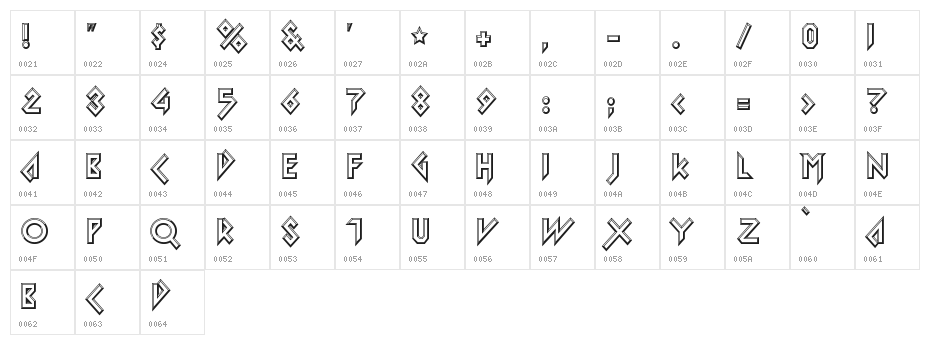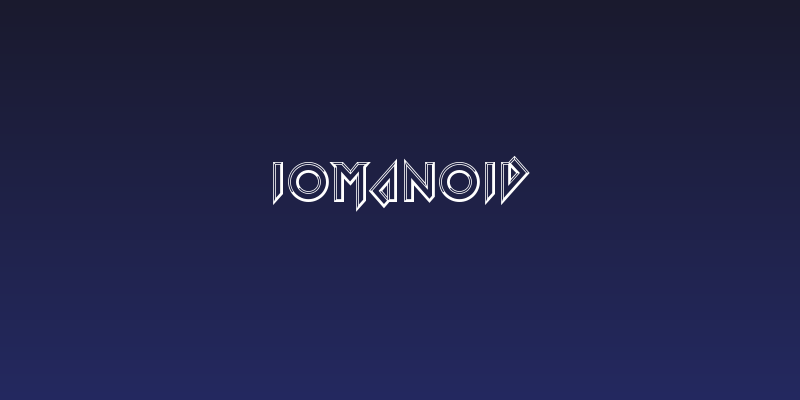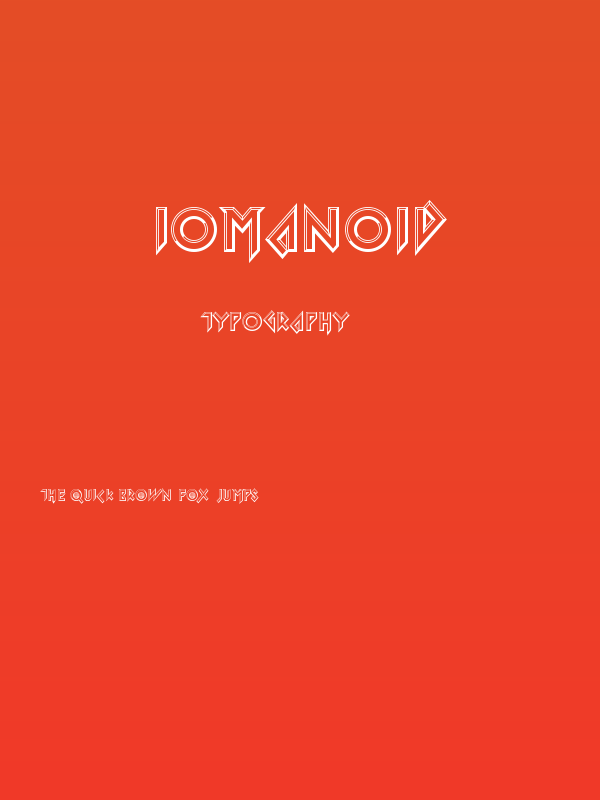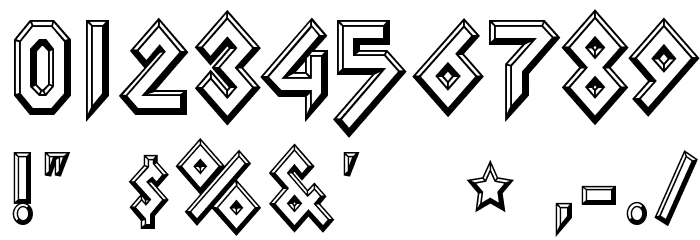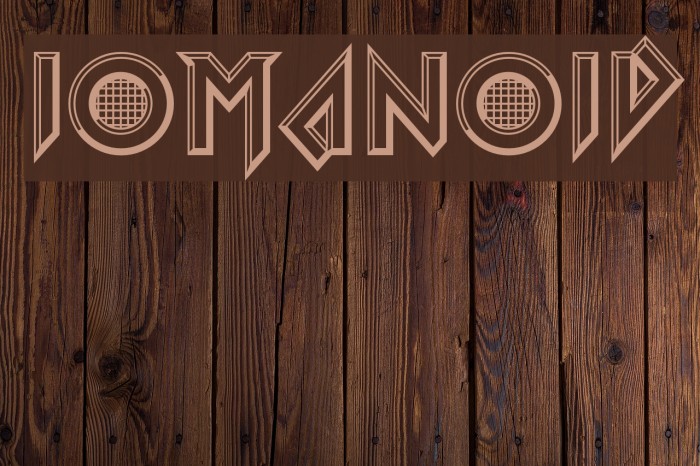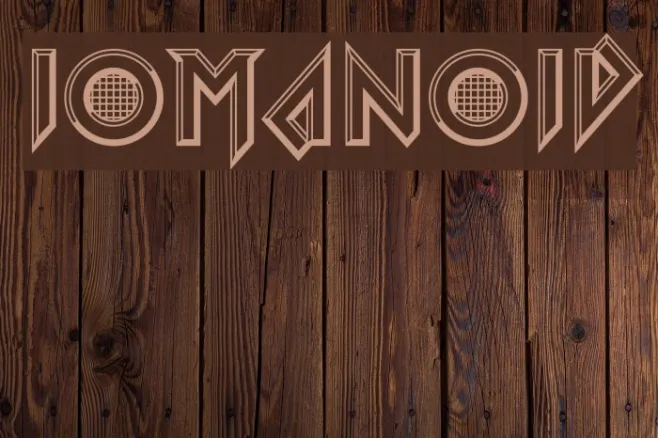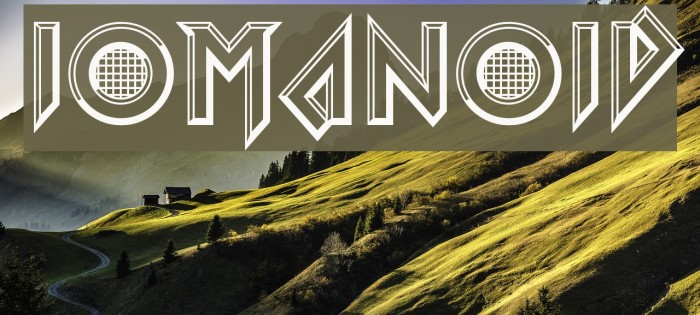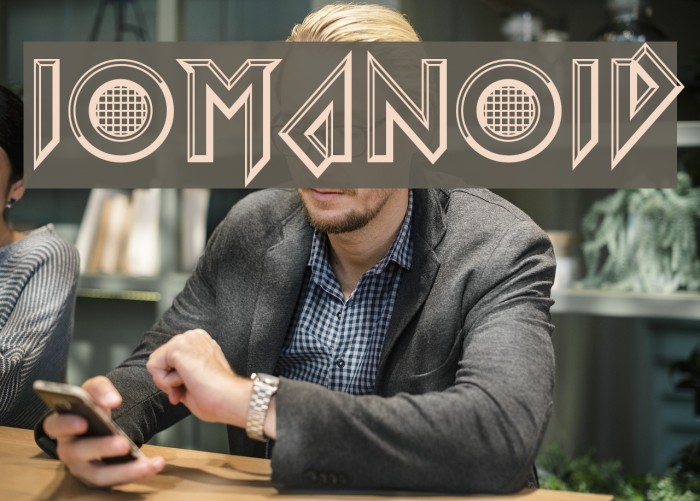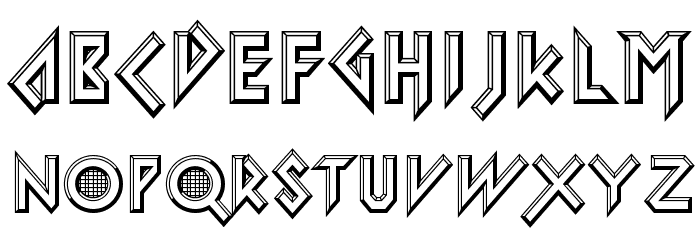
Iomanoid Font
Iomanoid Description
This font features a bold, geometric design with a three-dimensional effect, giving it a futuristic and robotic appearance. The characters are constructed with sharp angles and strong lines, creating a sense of depth and movement. The uppercase and lowercase letters maintain a consistent style, with the lowercase slightly smaller but equally impactful. Numbers and special characters follow the same design principles, ensuring uniformity across all elements. The font's unique style makes it stand out, ideal for projects that require a modern and edgy look.
| Overall Style | Futuristic, Modern |
| Proposed Projects | Ideal for sci-fi themed projects, video game titles, tech branding, and futuristic posters. |